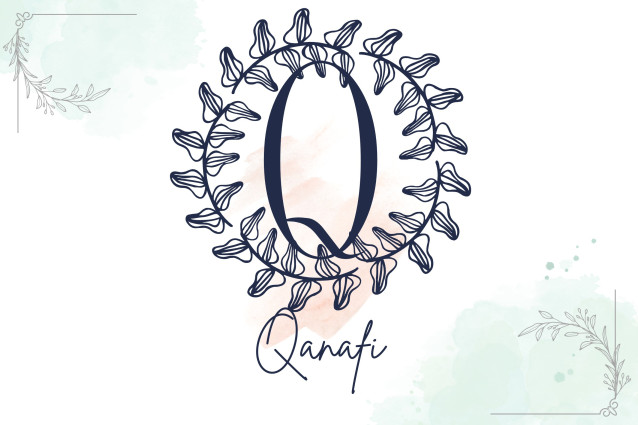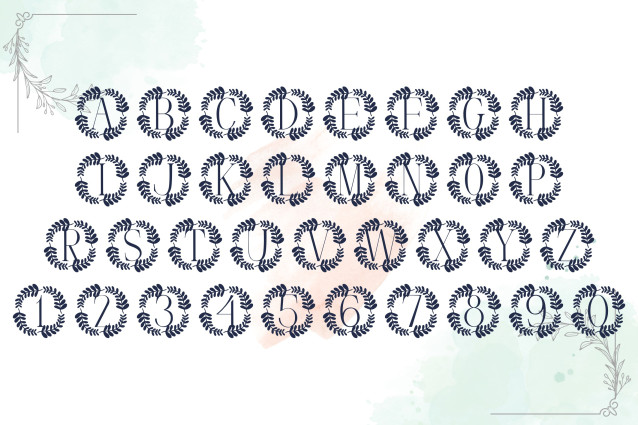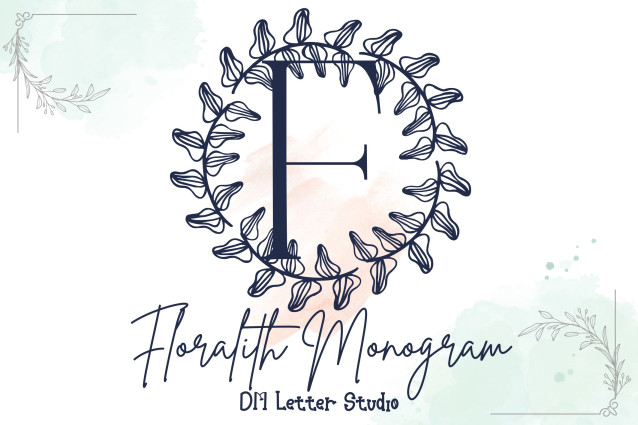
Floralith Monogram Font
Floralith Monogram Font is a refined and artistic monogram font featuring uppercase initials adorned with botanical elements. With soft curves, floral details, and a timeless serif structure, this font brings natural elegance to branding, wedding stationery, personalized gifts, and decorative packaging. Whether you’re designing for romance or refinement, Floralith adds a graceful, leafy touch to your creative work.